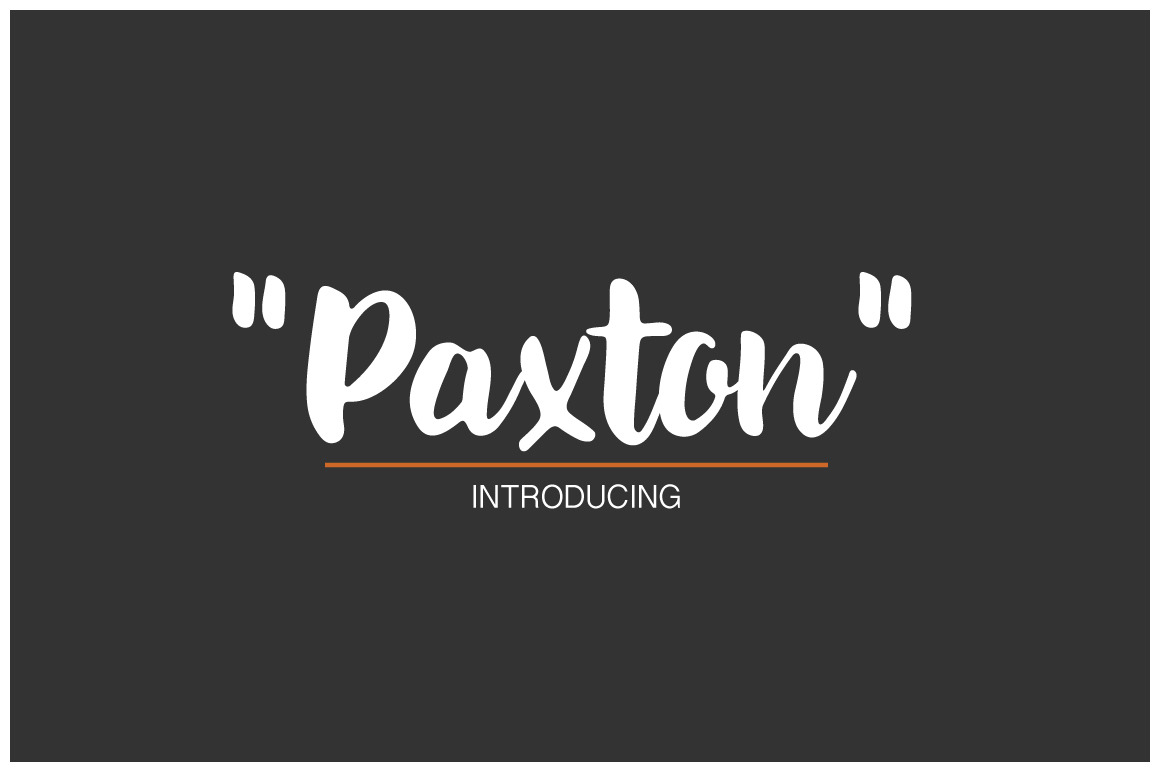
Paxton | A chic Hand written Font
Paxton is a chic and fun handwritten font that is absolutely perfect for quotes, products, logos, packaging, and so much more! Fresh and clean